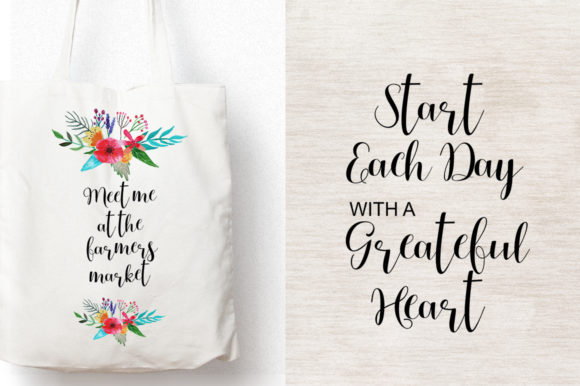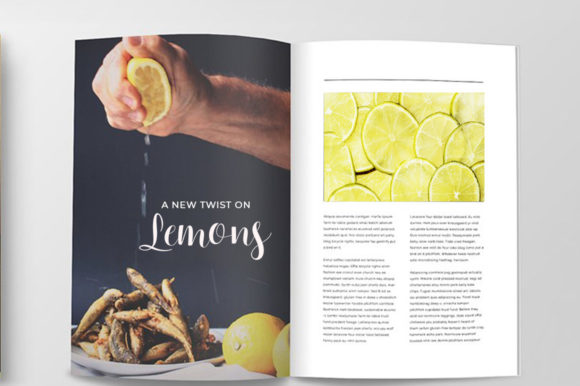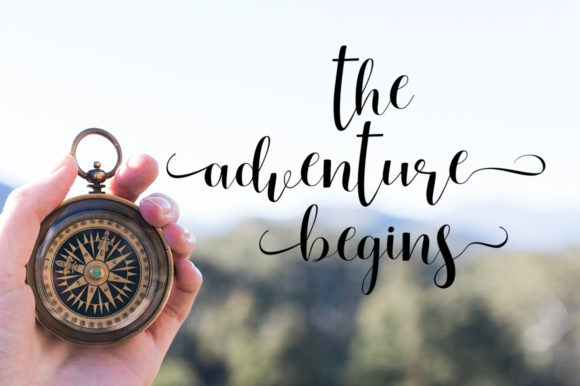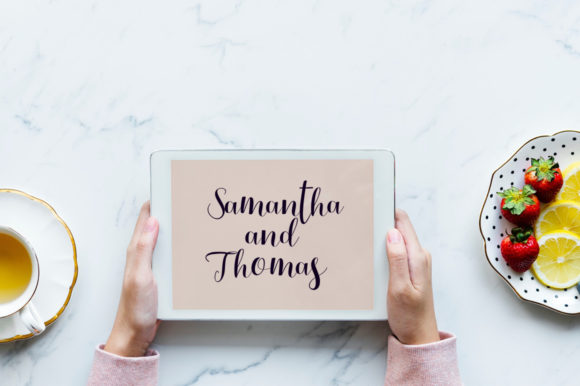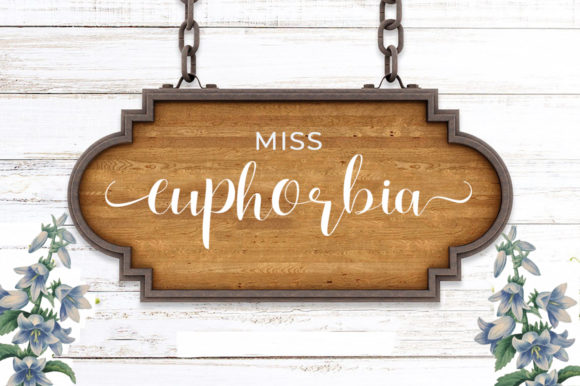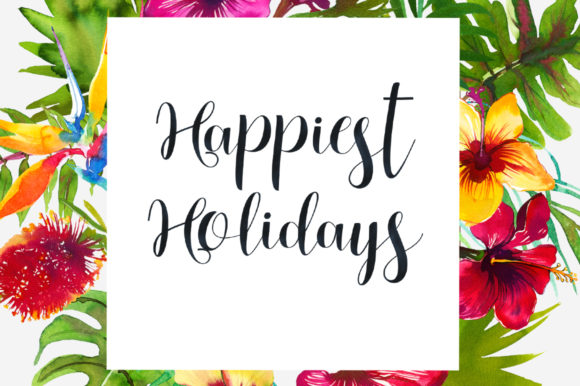
Introduction to Kamelia Script Font
Have you ever found yourself in the midst of a creative project, desperately searching for the perfect font to bring your vision to life? As designers, we’ve all been there – staring blankly at our screens, scrolling through endless options, hoping to stumble upon that elusive ‘wow’ factor. For those seeking a high-quality, modern script font that exudes elegance and sophistication, your search may finally be over.
Meet Kamelia Script Font, a stunning design resource that’s taking the world of typography by storm. With its irregular baseline and trendy, feminine style, Kamelia Script Font is the perfect addition to any creative project. Whether you’re crafting wedding invitations, designing thank you cards, or creating quotes that inspire, Kamelia Script Font is sure to leave a lasting impression.
Key Features of Kamelia Script Font
- Kamelia Script Font is a high-quality, elegant script font perfect for a creative project, making it a valuable design resource.
- Kamelia Script Font features a unique, hand-written feel, with subtle irregularities that add a touch of personality to any design.
- The font is suitable for various design projects, including invitations, greeting cards, and wedding stationery, where a touch of elegance is required.
Honest Review: Kamelia Script Font
I recently had the chance to work with the Kamelia Script Font and I must say, it’s a high quality design resource that can elevate any creative project. The font is perfect for adding a touch of elegance and sophistication to your designs.
One of the things I love about the Kamelia Script Font is its beautiful, handwritten style that’s reminiscent of classic calligraphy. It’s perfect for creating invitations, quotes, or any other design that requires a personal touch. The font also comes with a transparent background, making it easy to use in a variety of design contexts.
Here are some of the things that work well with the Kamelia Script Font:
- High-quality design with a beautiful, handwritten style
- Perfect for creative projects that require a personal touch
Overall, I’m impressed with the Kamelia Script Font and would definitely recommend it to designers looking for a high-quality design resource. With its beautiful, handwritten style and transparent background, it’s a great addition to any design toolset. ✨
Tips for Getting the Most Out of Kamelia Script Font
Experiment with different font sizes, colors, and combinations to create a unique look for your design project. Use the font in conjunction with other design elements such as images, shapes, and icons to add depth and interest to your design.
The Kamelia Script Font is ideal for use in wedding invitations, baby shower invitations, and other creative projects that require a touch of elegance and sophistication. It is also suitable for use in marketing materials, social media graphics, and other design projects where a high quality and creative look is desired.